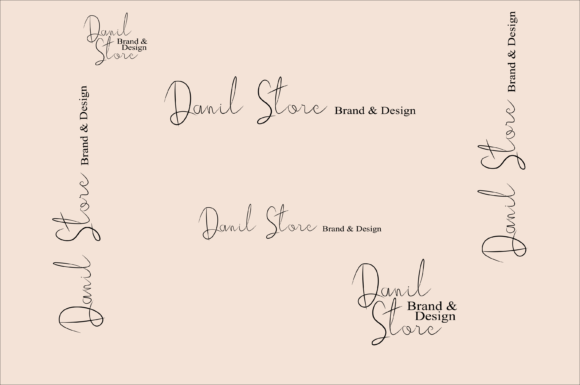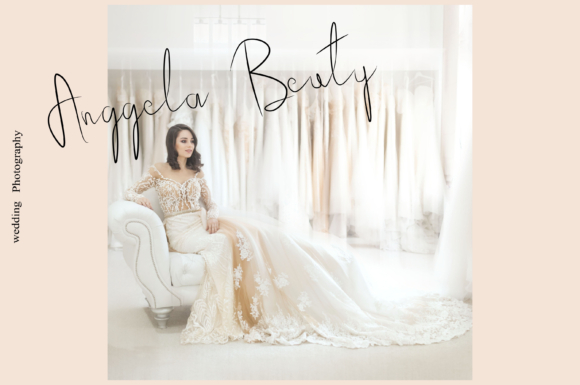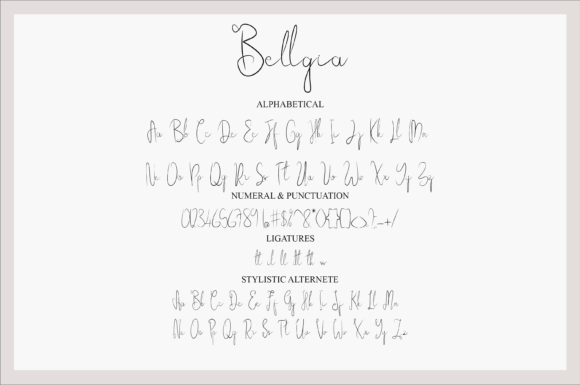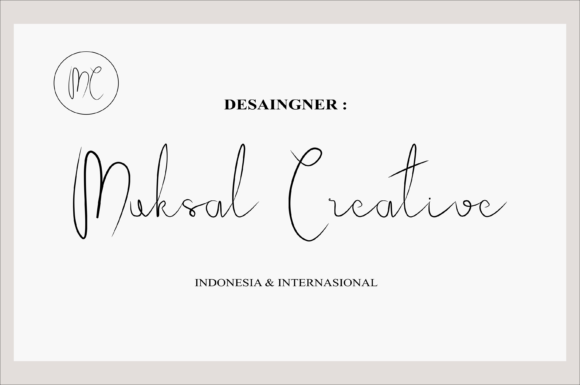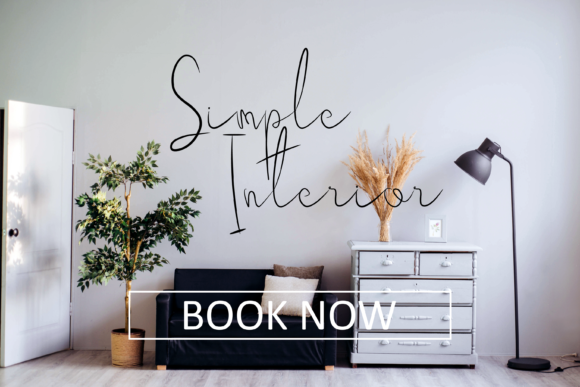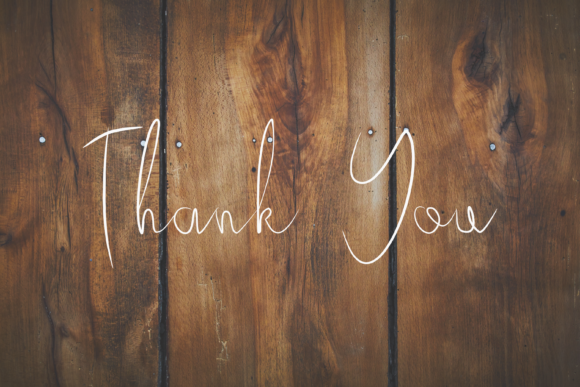
Bellgia Font: Elevate Your Designs with a Touch of Modern Elegance
In the world of typography, fonts play a crucial role in conveying the tone and aesthetic of a design. For designers and crafters looking to add a touch of modern elegance to their projects, the Bellgia font is an excellent choice. This beautiful and light handwritten font boasts an original style that is sure to inspire and elevate your designs.
What is Bellgia Font?
Bellgia is a stunning handwritten font that exudes a sense of modernity and sophistication. Its light and airy feel makes it perfect for designs that require a touch of elegance and refinement. Whether you’re working on a branding project, a wedding invitation, or a digital product, Bellgia is an excellent choice for adding a dash of style and personality.
Key Features of Bellgia Font
- Original Style: Bellgia’s unique and original style sets it apart from other fonts. Its modern aesthetic is sure to make your designs stand out.
- Light and Airy: The font’s light and airy feel makes it perfect for designs that require a touch of elegance and refinement.
- Handwritten: Bellgia’s handwritten style adds a personal touch to your designs, making them more relatable and engaging.
- Modern Aesthetic: The font’s modern aesthetic makes it perfect for designs that require a contemporary look and feel.
Why Choose Bellgia Font?
There are many reasons why designers and crafters choose Bellgia font for their projects. Here are a few:
- Versatility: Bellgia is a versatile font that can be used for a wide range of design projects, from branding and advertising to wedding invitations and digital products.
- Elegance: The font’s elegant and refined style makes it perfect for designs that require a touch of sophistication.
- Readability: Bellgia is highly readable, making it perfect for designs that require a clear and concise message.
- Uniqueness: The font’s original style ensures that your designs stand out from the crowd and are memorable.
How to Use Bellgia Font
Using Bellgia font is easy. Here are a few tips to get you started:
- Pair it with Other Fonts: Bellgia pairs well with other fonts, making it easy to create a unique and visually appealing design.
- Experiment with Colors: The font looks great in a variety of colors, so don’t be afraid to experiment and find the perfect hue for your design.
- Use it for Headings and Titles: Bellgia is perfect for headings and titles, adding a touch of elegance and sophistication to your designs.
Here are a few tips and tricks for designers and crafters looking to get the most out of Bellgia font:
- Use Bellgia for Branding: The font’s modern aesthetic and elegant style make it perfect for branding projects.
- Add a Personal Touch: Bellgia’s handwritten style adds a personal touch to your designs, making them more relatable and engaging.
- Experiment with Different Sizes: The font looks great in a variety of sizes, so don’t be afraid to experiment and find the perfect size for your design.
In conclusion, Bellgia font is a beautiful and light handwritten font with an original style that is sure to inspire and elevate your designs. Its modern aesthetic, elegance, and versatility make it perfect for a wide range of design projects. Whether you’re a designer or crafter, Bellgia is an excellent choice for adding a touch of sophistication and style to your work.
Get Inspired by Bellgia Font
Get inspired by the modern aesthetic of Bellgia font and take your designs to the next level. With its unique style, elegance, and versatility, Bellgia is the perfect choice for designers and crafters looking to create stunning and memorable designs.